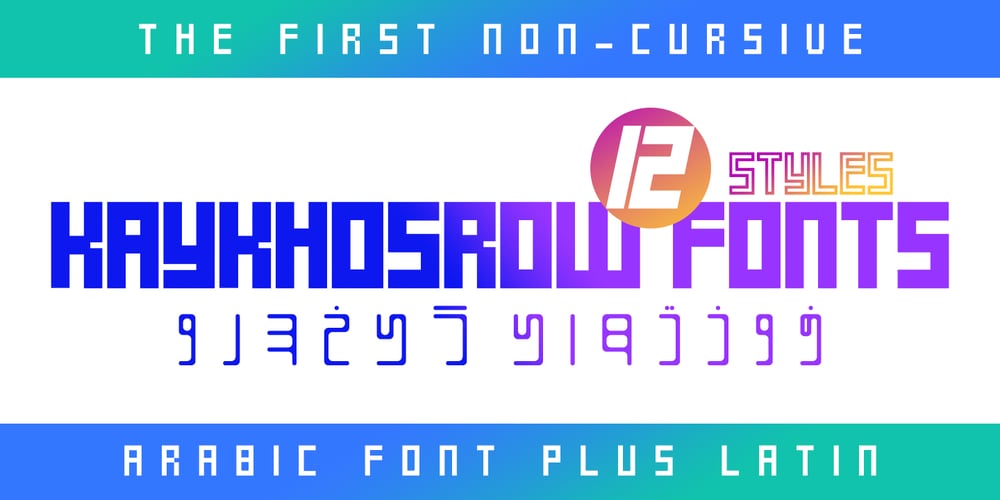
KayKhosrow
KayKhosrow font
KayKhosrow Font Family was designed by Shahab Siavash and published by Si47ash Fonts. KayKhosrow contains 12 styles and family package options. Futuristic, modular, blocked, squarish and modernist KayKhosrow font has got 12 versatile styles! The very first non-cursive Arabic/Persian font which also supports Latin characters as well! You’re gonna love how all those different styles are gonna work with each other! For your cover designs, posters, logotypes and any typographic projects, you can count on KayKhosrow fonts! There are 12 of them!Shahab Siavash, the designer has done more than 30 fonts and got featured on Behance, Microsoft, McGill University research website, Hackernoon, Fontself, FontsInUse,… Astaneh text and headline font which is one of his latest designs, already got professional typographers, lay-out and book designers’ attention as well as some of the most recognizable publications in Arabic/Persian communities.